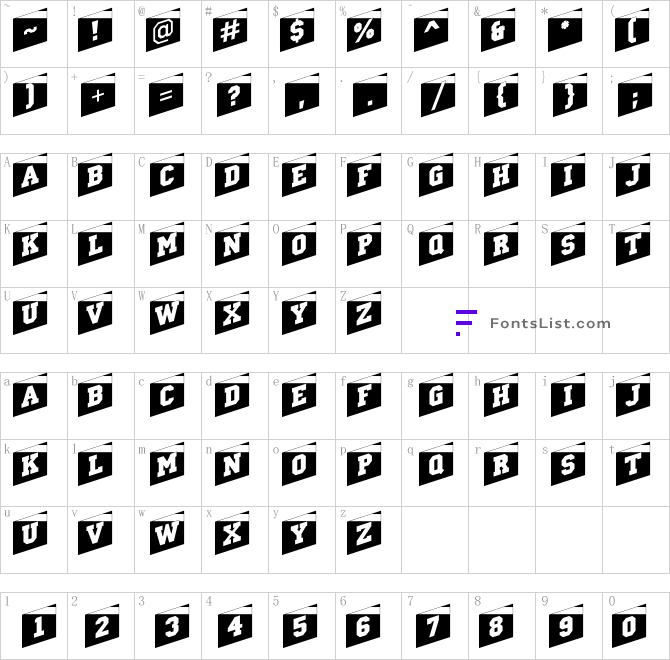
- Font Name:a_CampusCmCorner
a_CampusCmCorner.ttf is a very beautiful artistic font, a_CampusCmCorner.ttf is widely used in the design and printing of various books and pictures,a_CampusCmCorner.ttf has a strong visual impact,a_CampusCmCorner.ttf is a commonly used font in newspapers, magazines and books, and is used in posters, e-commerce Poster design, store design, logo design, font design and other fields.a_CampusCmCorner.